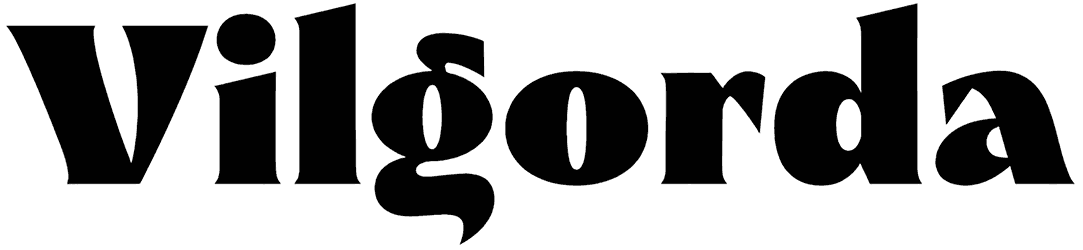
Vilgorda Font
Introduce your creative idea with a classic and precious outward and receive the admiration of your audience. This serif font with its unique and bold letters is a graceful choice for various projects and titles. Just test Vilgorda font on the intended context of your coming designs, like posters, apparel, cards, packaging, or so forth, and overjoy it.